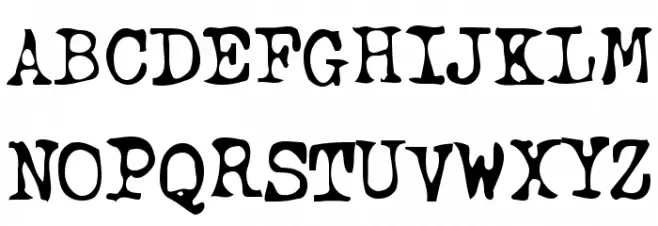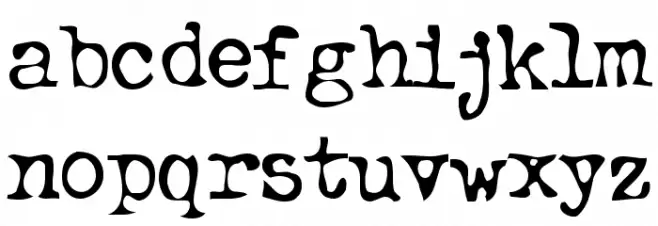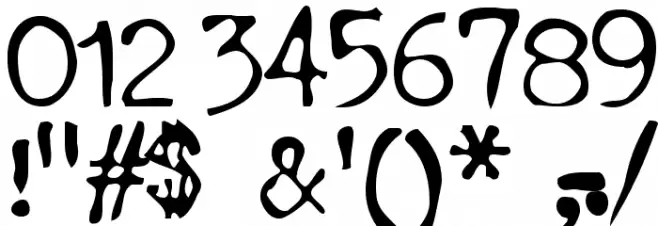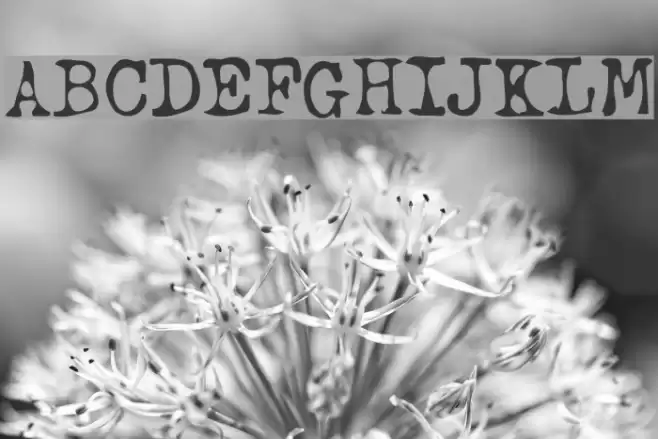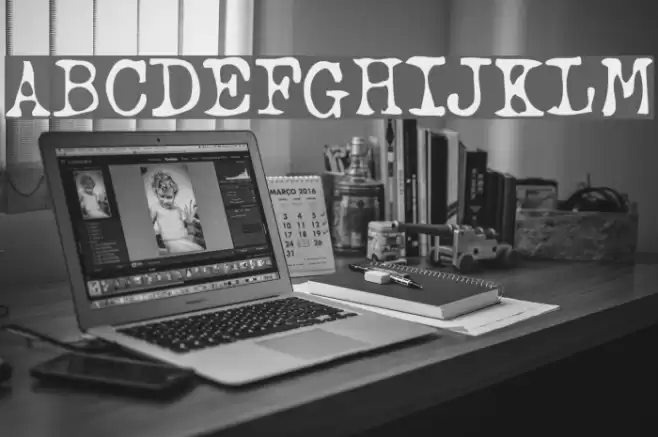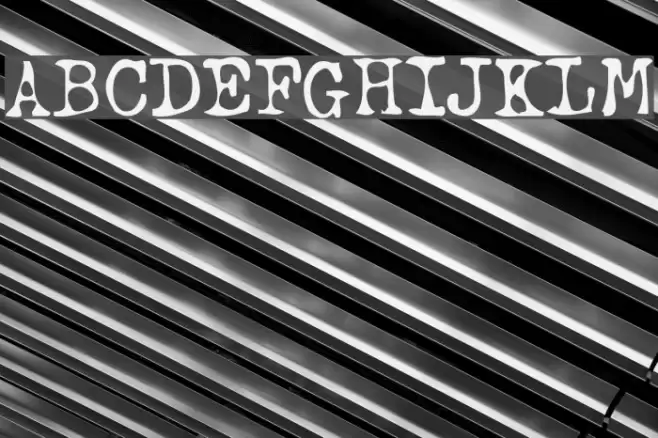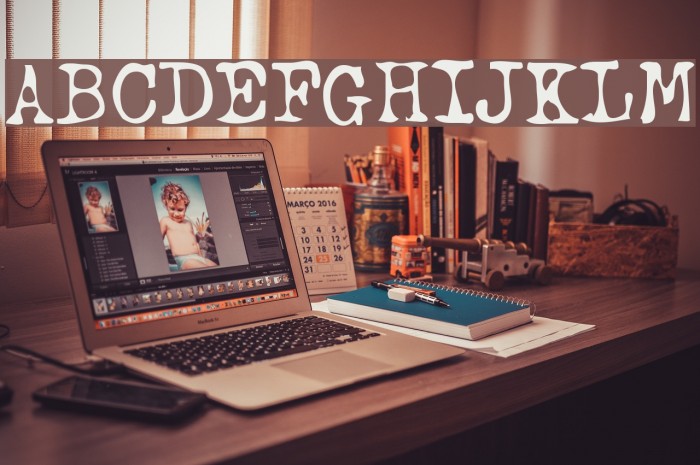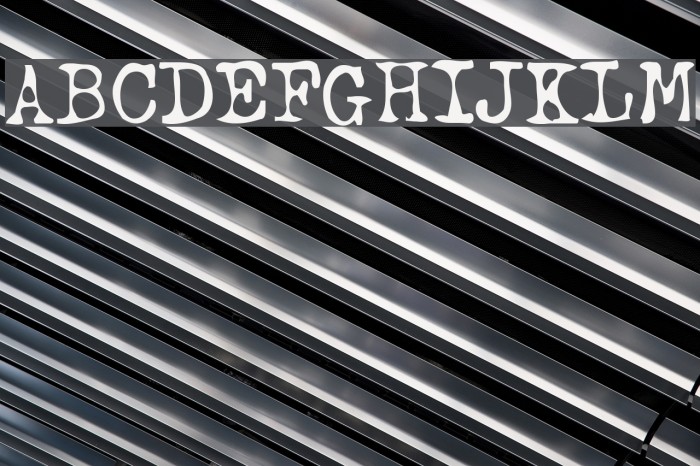
btd BeezWax
This font features a playful and whimsical design, characterized by its uneven and wavy strokes that give it a hand-drawn appearance. The letters have a bold presence with varying thickness, creating a dynamic and lively look. The uppercase and lowercase letters maintain a consistent style, with exaggerated curves and loops that add to its quirky charm. The numbers and special characters follow the same playful theme, making the font suitable for creative and informal projects. Its unique style makes it stand out, perfect for capturing attention in designs that require a fun and artistic touch.
A playful, hand-drawn font with wavy, uneven strokes and a whimsical style.
- Proposed Projects: Ideal for children's books, playful branding, greeting cards, and creative posters.
- Overall Style: Whimsical
- Use Case: Logos, Headlines, Posters